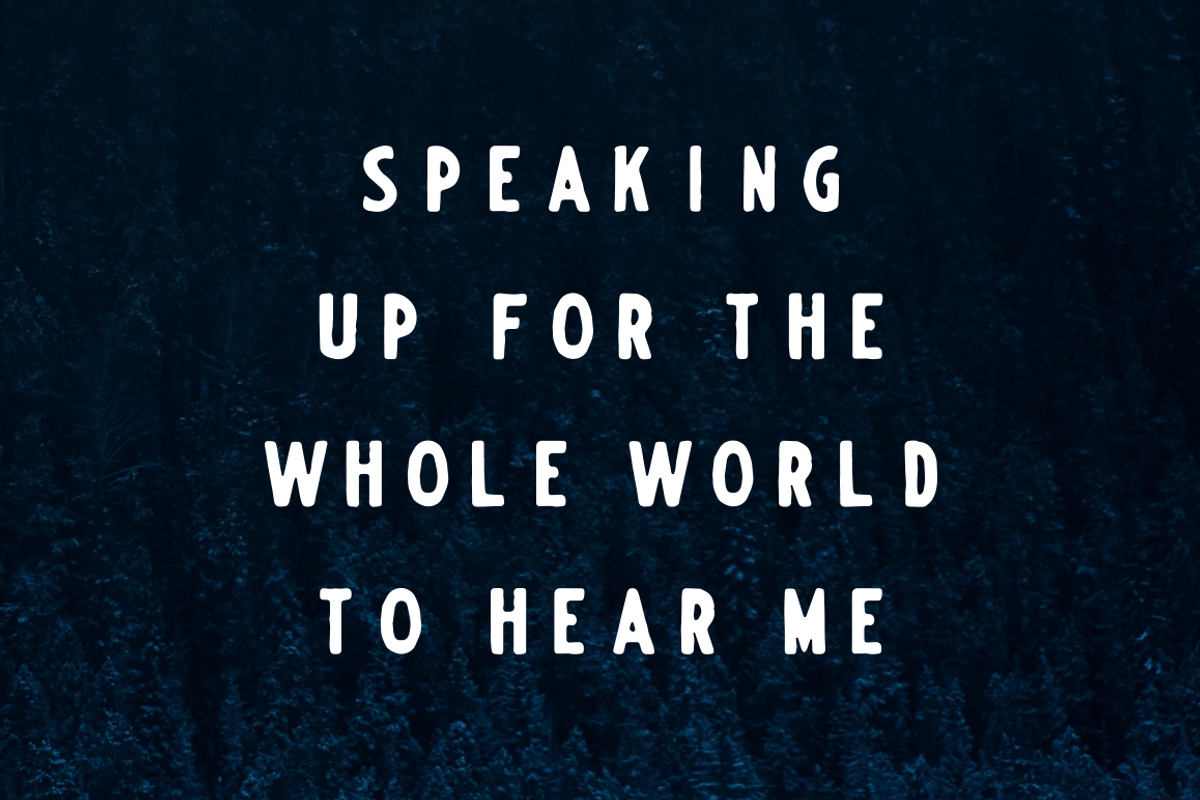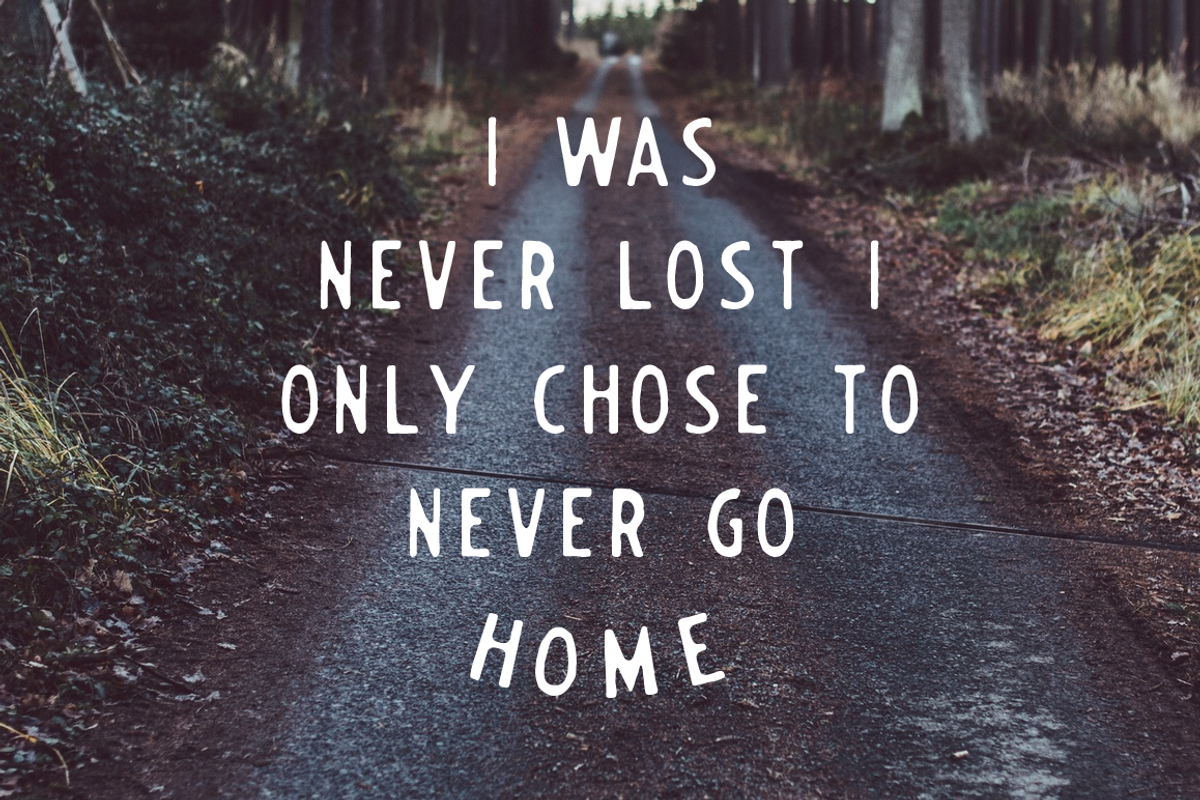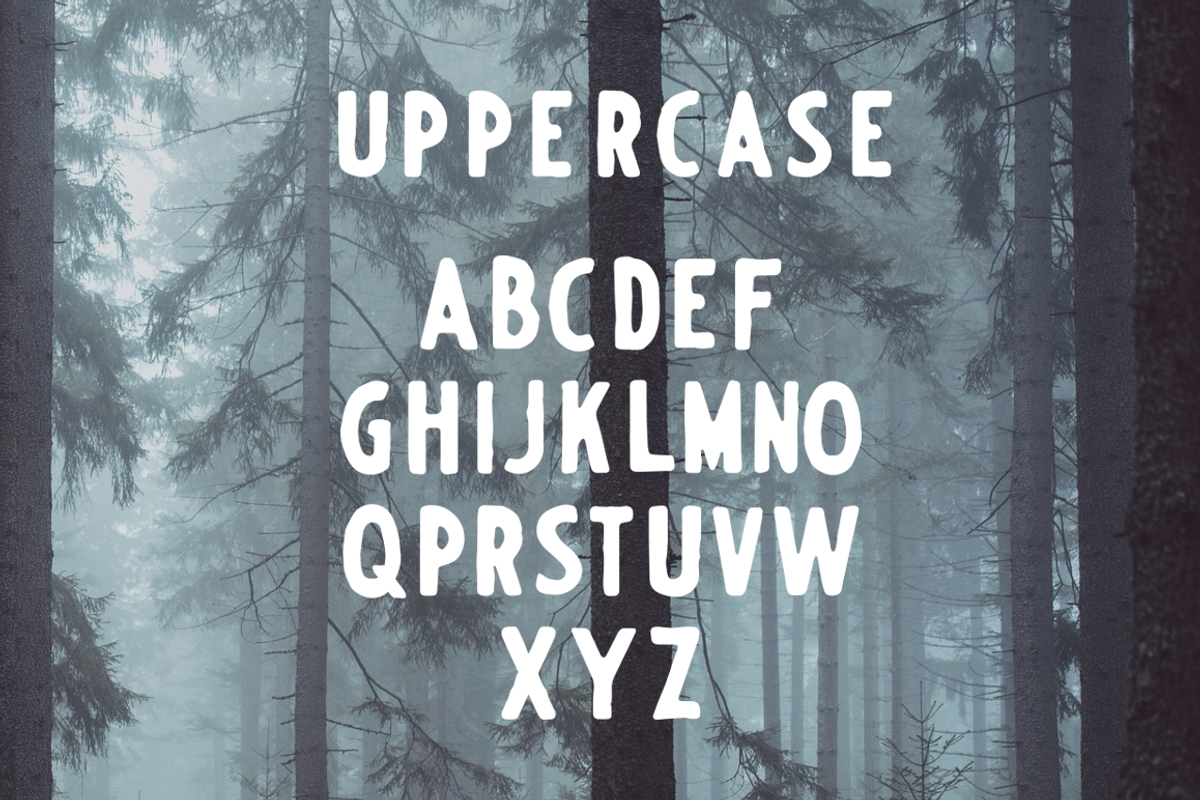
EVERGREEN - Hand drawn typeface
EVERGREEN is a font inspired by vintage signs and a passion for the great outdoors. This font was drawn by hand before being scanned and vectorised. I've maintained as much of the hand drawn, naturally textured edges as possible to give a unique and personal look to your work!
This font is all caps, so I've included a slimmer, lighter version in place of the lowercase letters. I've added numerals along with some punctuation and will happily be adding more :)